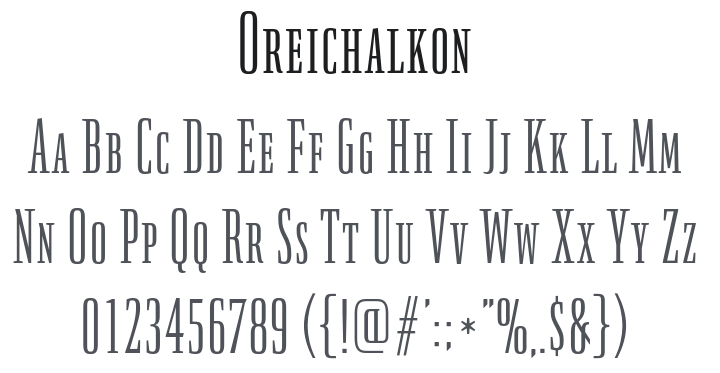
Oreichalkon Font Family
by dot colon
About Oreichalkon
Oreichalkon is an elongated Roman typeface developed as an evolution of Ferrum.
While retaining Ferrum's signature extremely tall letterforms, the design has been comprehensively refined to achieve a more sophisticated look. The character set has been significantly expanded, and the weight range now extends from Thin to Bold.